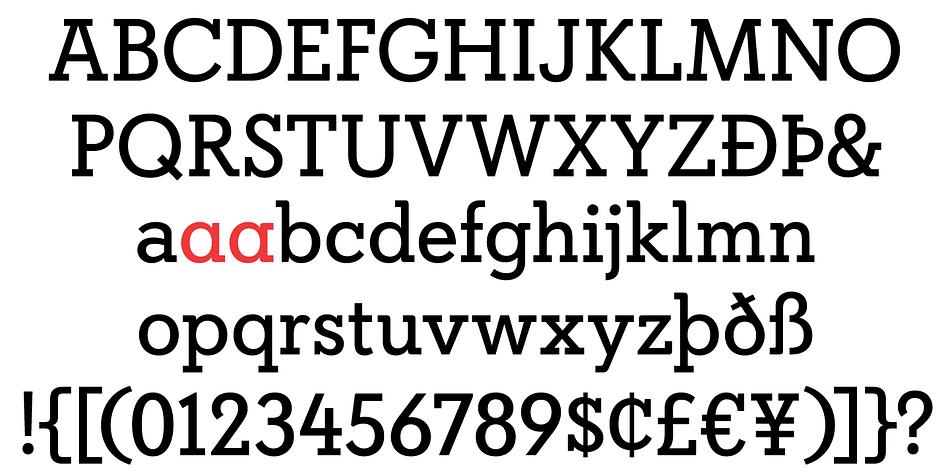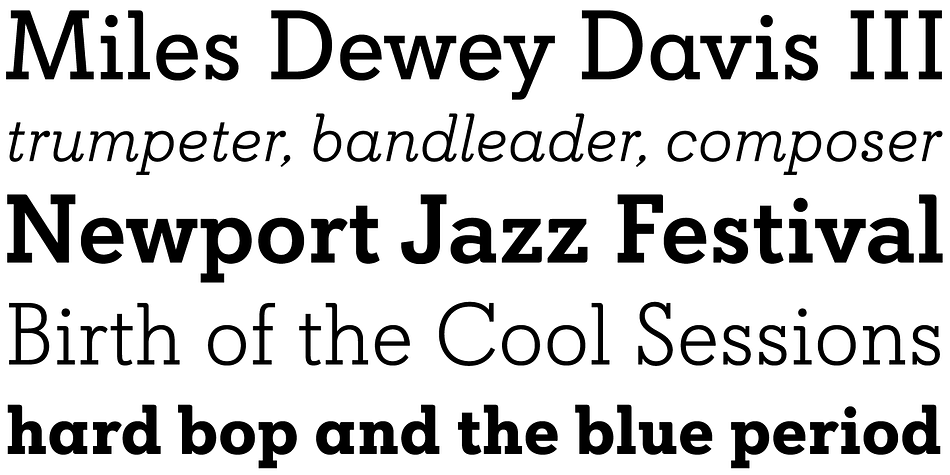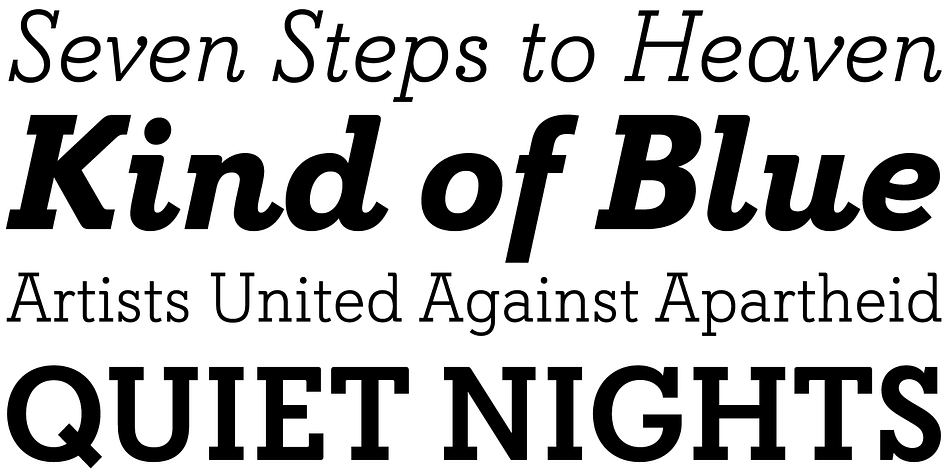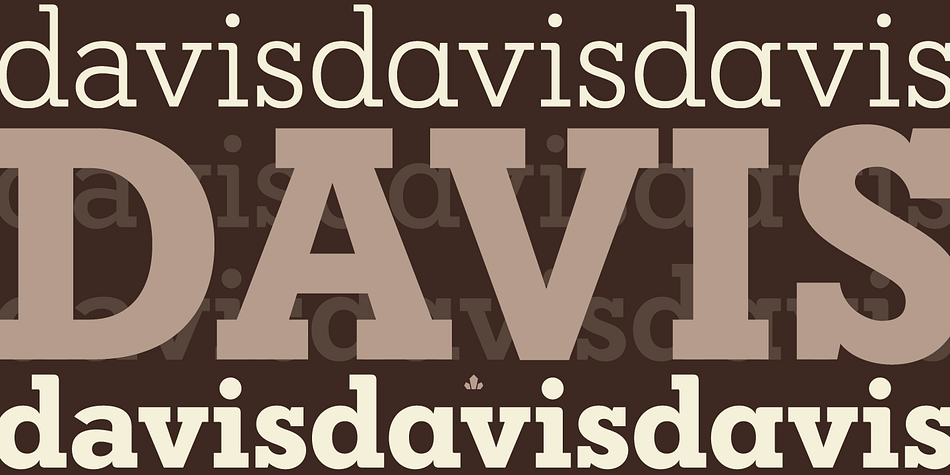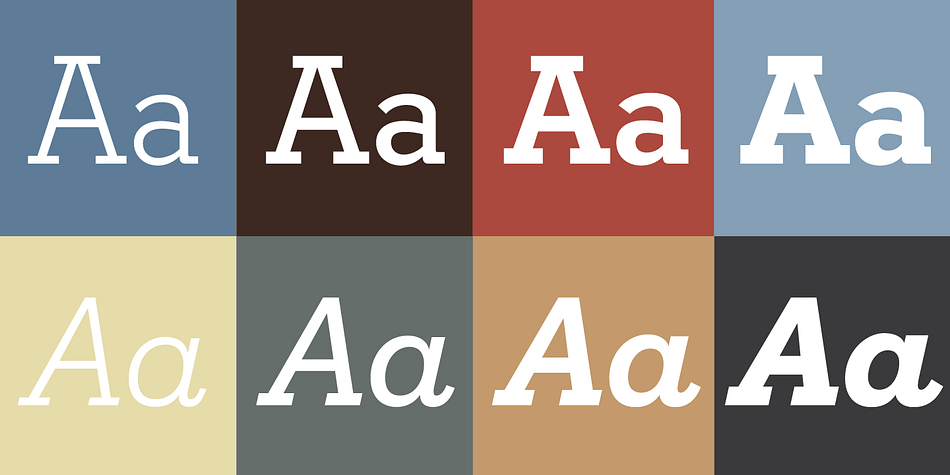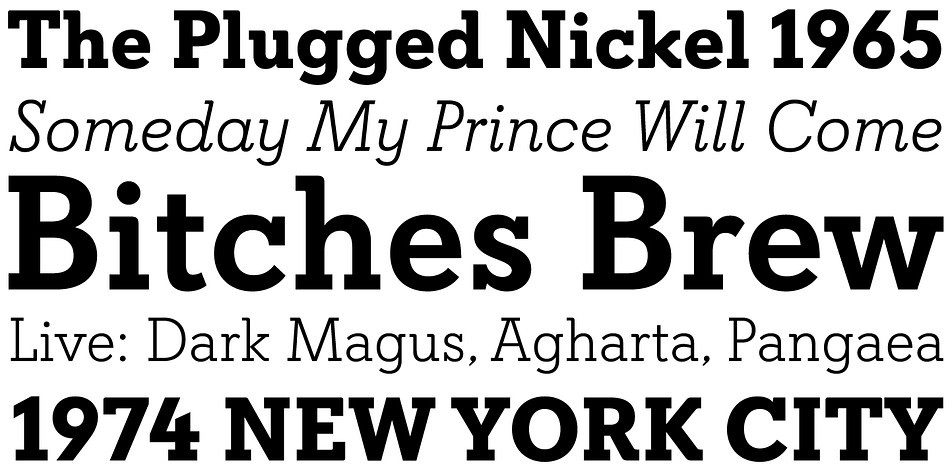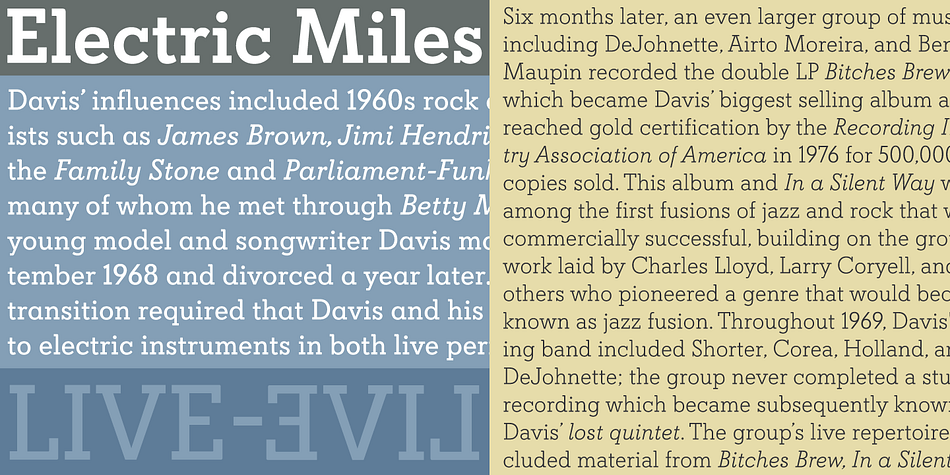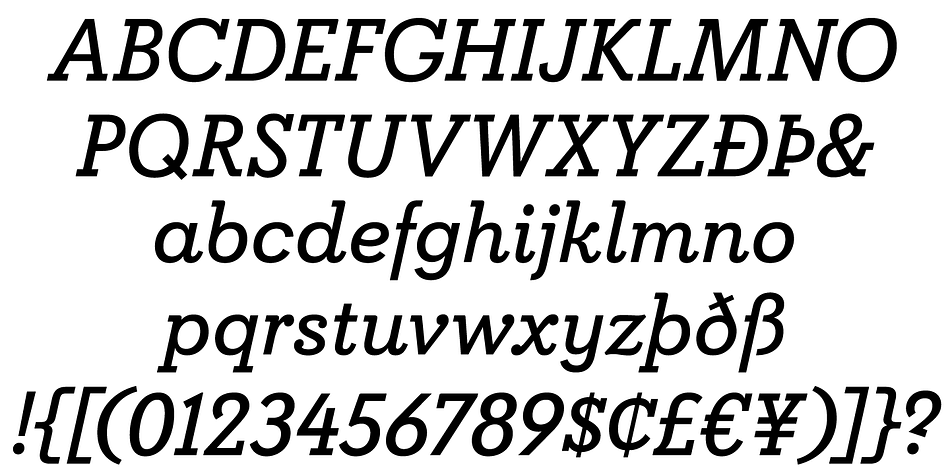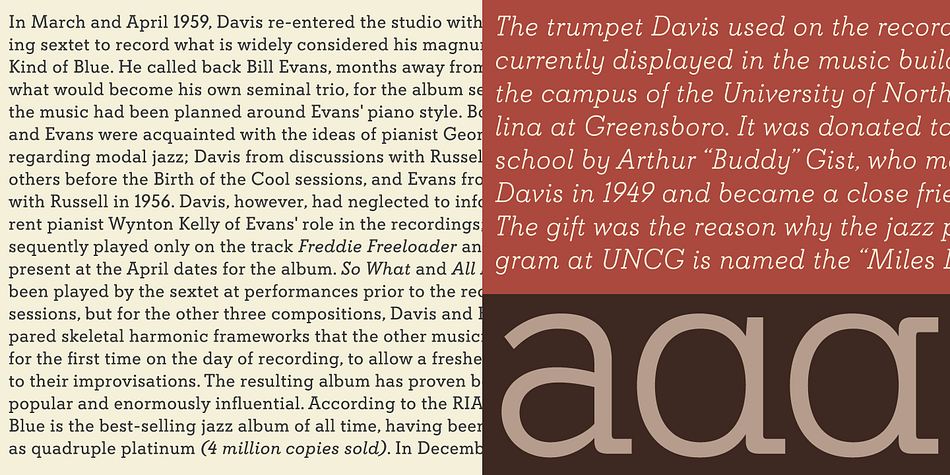
Designed by Patrick Griffin, Davis is a slab serif font family. This typeface has eight styles and was published by Canada Type.
Over the past couple of decades, the many applications that joined print as media requiring design solutions have combined to necessitate a visual evolution that favours controlled optical geometry and careful counter-space consideration over ornamental features traditionally associated with print design. This is now true in corporate, advertising and interface design, and is even spilling over into editorial layouts. Such focus on clarity and precision in modern design environments have brought to light the many issues that riddle classic print faces, and increased the call for new solutions. The reinvigorated type design market responded to the demand, sometimes with original takes that build on the classics, and sometimes with merely subtle differences from the old aesthetics.
The Davis family, though in its own right an excellent modern typeface that works quite well in traditional environments, was conceived and produced to be one half of a set of counterparts — a slab and a sans — that satisfy the multiple layers of corporate and advertising projects, from identity and editorial to the many levels of product branding.
Davis and Davis Sans come in four weights with corresponding true italics, totalling eight fonts per family. Each font includes over 400 glyphs, with extended Latin language support, stylistic alternates, and class-based kerning.